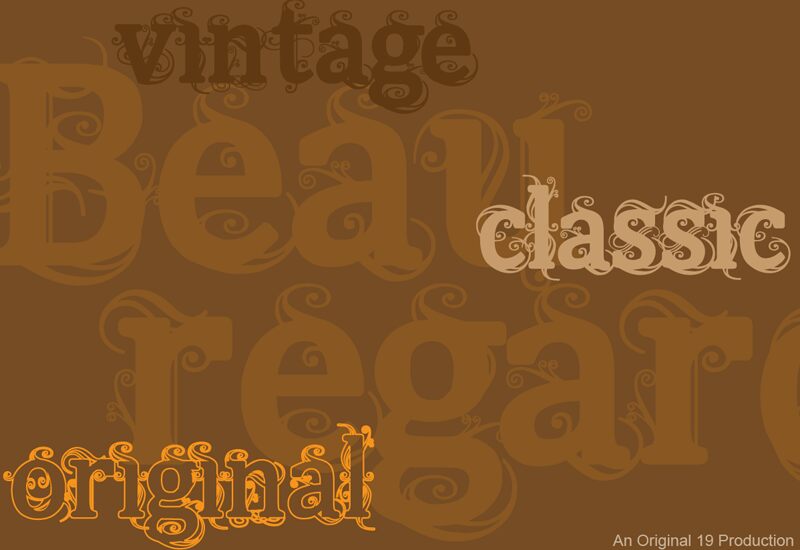
Beauregard is a free ornamental display font with a theatrical, old-fashioned air. Broad, dark letters are cut through with pale curls and teardrop-shaped openings. Fine vine-like flourishes spill from the edges, making the lettering look hand-carved and slightly unruly.
Its lavish decoration suits vintage confectionery packaging and fantasy posters, as well as theatrical programs and eccentric event invitations. It speaks to audiences drawn to Victorian curiosities and storybook spectacle.